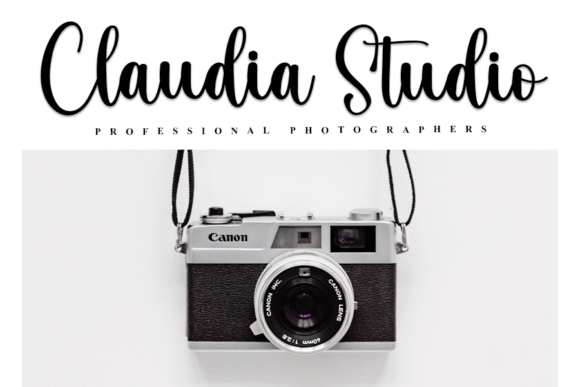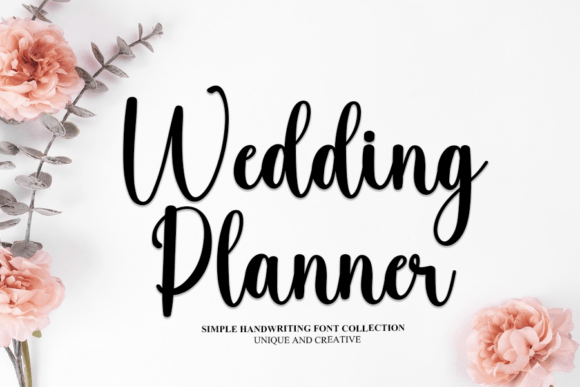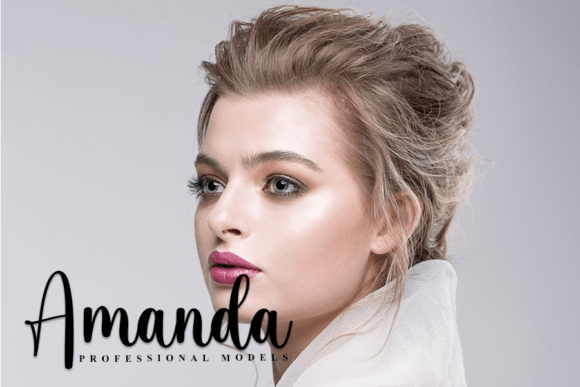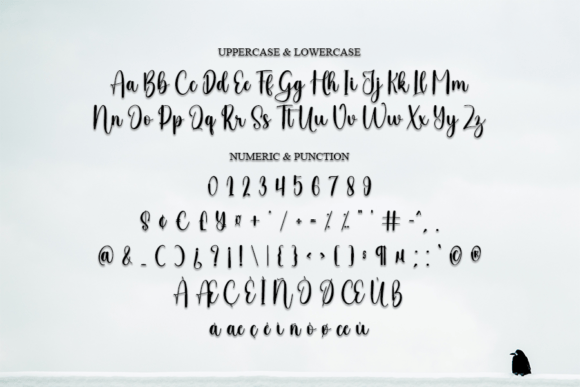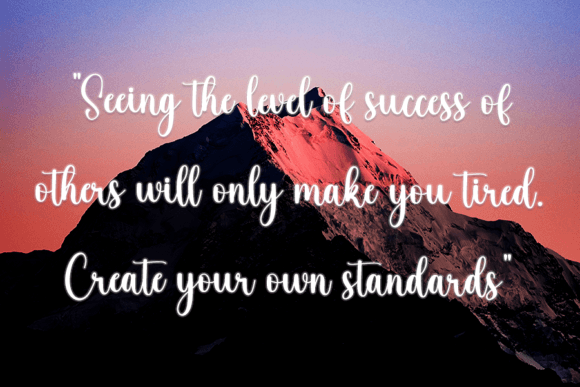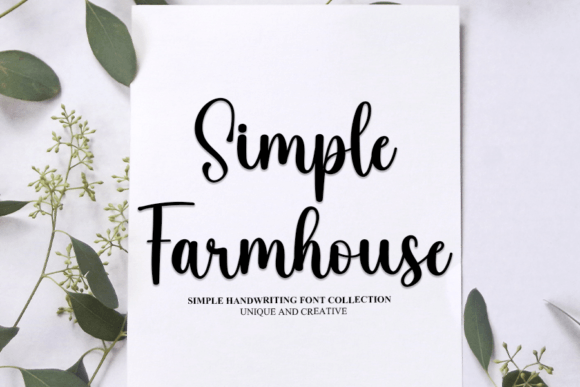
Introducing Amsterdam Font: Elevate Your Designs with a Delicate Handwritten Touch
In the world of typography, fonts play a pivotal role in conveying messages, expressing emotions, and creating a lasting impression. For designers and crafters seeking a unique and cool design element, the Amsterdam Font is an exquisite choice. This delicate handwritten font is carefully crafted to add a touch of elegance and sophistication to various design projects, including letters, invitations, food products, titles, and more.
What is Amsterdam Font?
Amsterdam Font is a beautifully designed handwritten font that exudes a sense of refinement and charm. Its delicate strokes and intricate details make it an ideal choice for designers looking to add a personal touch to their work. Whether you’re creating wedding invitations, branding materials, or packaging designs, Amsterdam Font is sure to impress.
Key Features of Amsterdam Font
- Delicate Handwritten Style: Amsterdam Font boasts a unique, handcrafted look that sets it apart from other fonts.
- Versatile Usage: This font can be used for a wide range of design projects, including letters, invitations, food products, titles, and more.
- Cool and Unique Design: Amsterdam Font’s distinctive style adds a touch of sophistication and elegance to any design.
- Easily Readable: Despite its delicate nature, Amsterdam Font remains easily readable, making it perfect for body text and headings.
Uses of Amsterdam Font
Amsterdam Font’s versatility makes it an excellent choice for various design applications. Here are some ideas to get you started:
- Wedding Invitations: Add a touch of romance and elegance to your wedding invitations with Amsterdam Font.
- Food Packaging: Use Amsterdam Font to create eye-catching labels and packaging for food products, such as artisanal chocolates, baked goods, or specialty teas.
- Branding Materials: Incorporate Amsterdam Font into your brand’s visual identity to convey a sense of sophistication and refinement.
- Stationery: Create beautiful, handwritten-style stationery with Amsterdam Font, perfect for personal letters or business correspondence.
Tips for Using Amsterdam Font Effectively
To make the most of Amsterdam Font, consider the following tips:
- Pair with Contrasting Fonts: Combine Amsterdam Font with bold, sans-serif fonts to create visual interest and contrast.
- Use for Headings and Titles: Amsterdam Font’s delicate nature makes it perfect for headings and titles, adding a touch of elegance to your design.
- Experiment with Colors: Try pairing Amsterdam Font with pastel colors or rich jewel tones to create a unique and eye-catching design.
Amsterdam Font is a beautiful, delicate handwritten font that can elevate your designs to new heights. Its versatility, elegance, and unique style make it an excellent choice for designers and crafters seeking to add a touch of sophistication to their work. Whether you’re creating wedding invitations, food packaging, or branding materials, Amsterdam Font is sure to impress. So why not give it a try and experience the magic of Amsterdam Font for yourself?